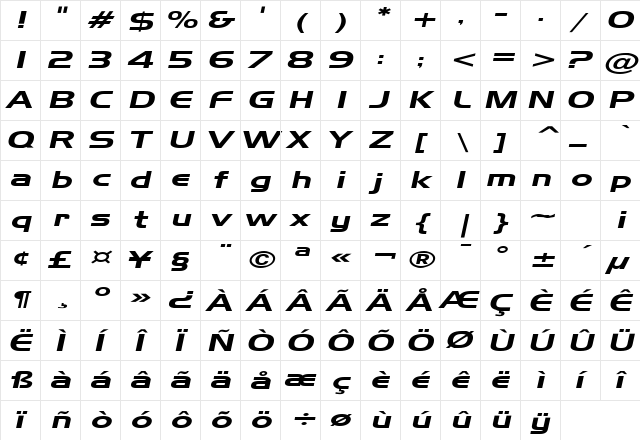
Hanzel Extended Italic
Design Context for Hanzel Extended Typeface
Hanzel Extended takes a measured approach to typography — its balanced proportions and neutral character make it a reliable workhorse for both digital and print work. The slanted form adds forward momentum and visual energy.